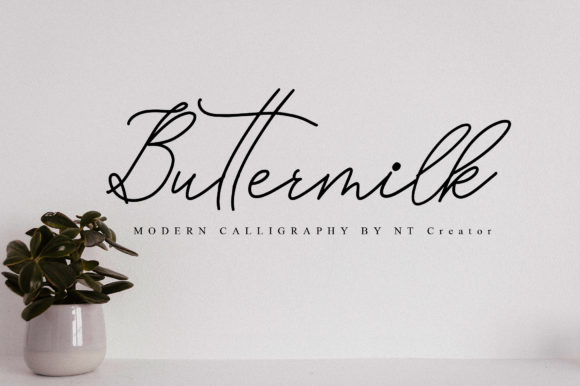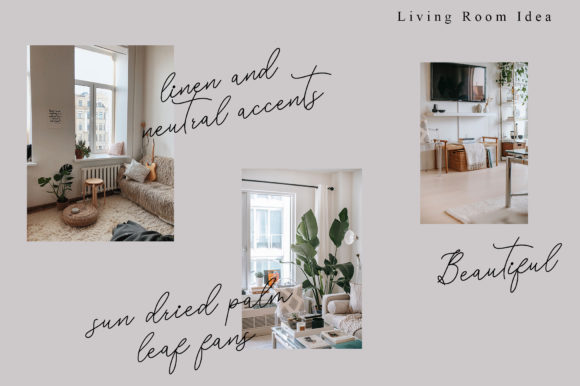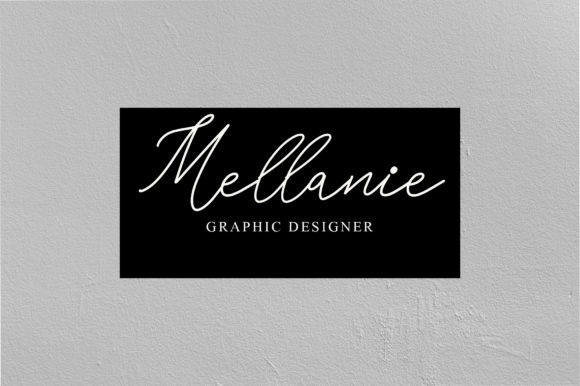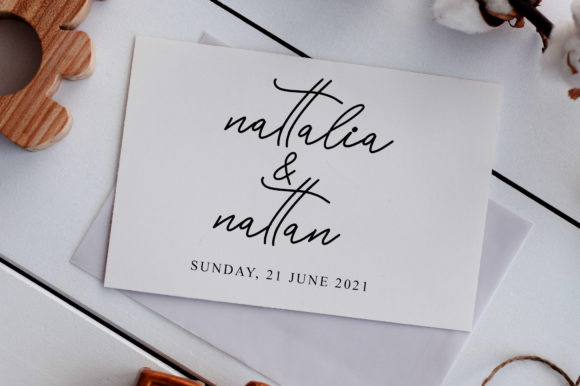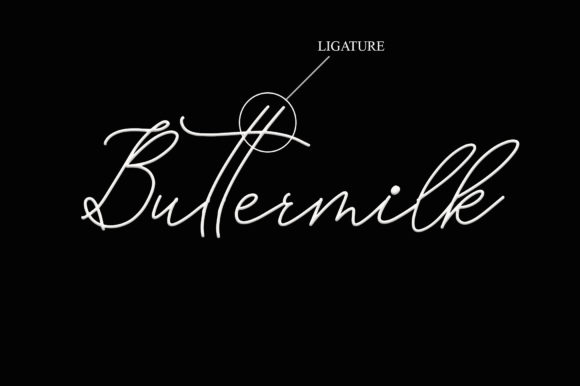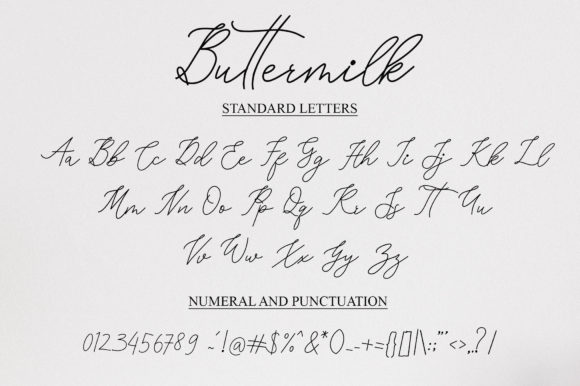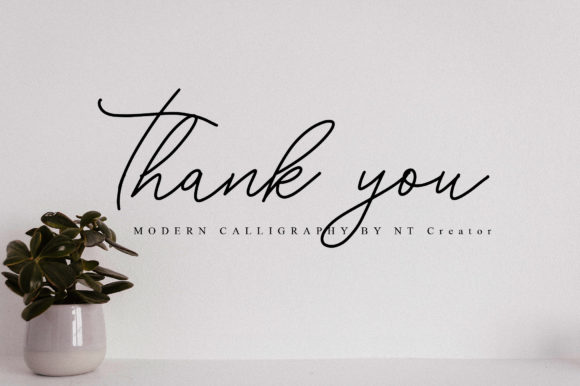
Buttermilk Font
About Buttermilk Font
Buttermilk is a lovely and delicate script font that exudes elegance and class. This font was particularly crafted for those who need a beautiful and refreshing look to their designs.